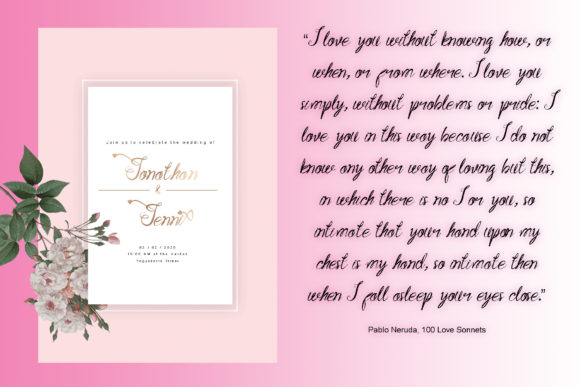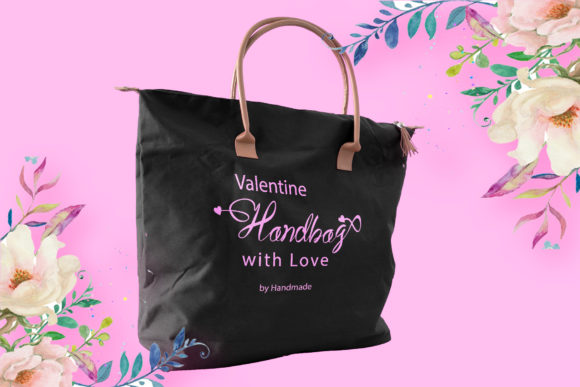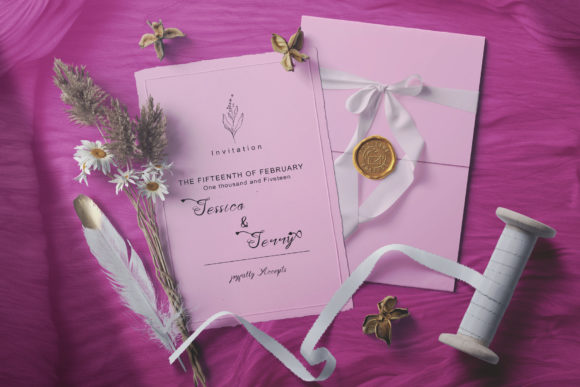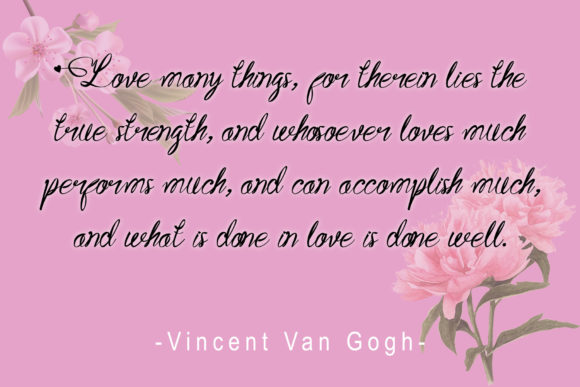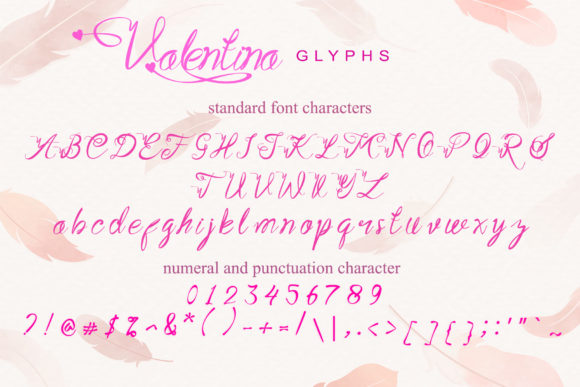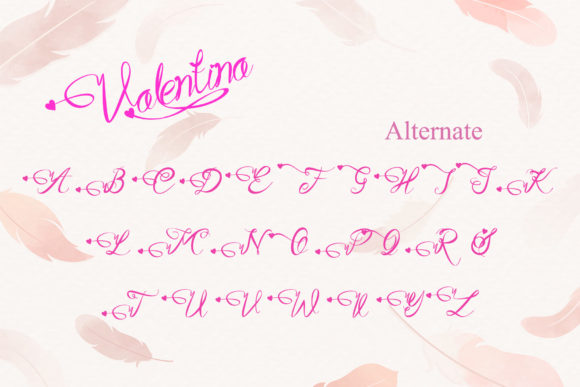
Valentina Font
About Valentina Font
Valentina is a friendly and beautiful script font. Use it for any design project that requires a personalized appearance!